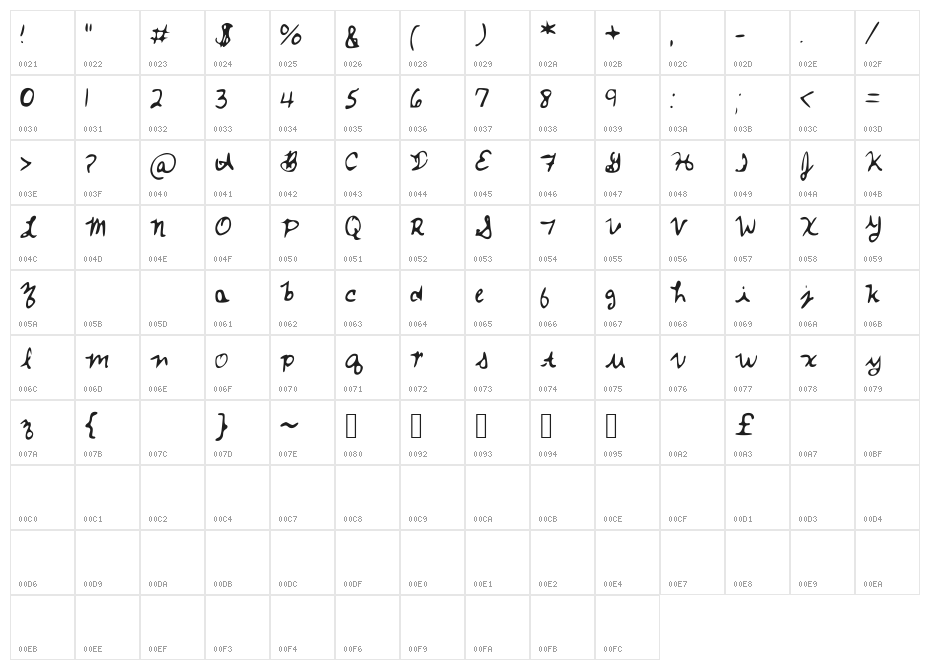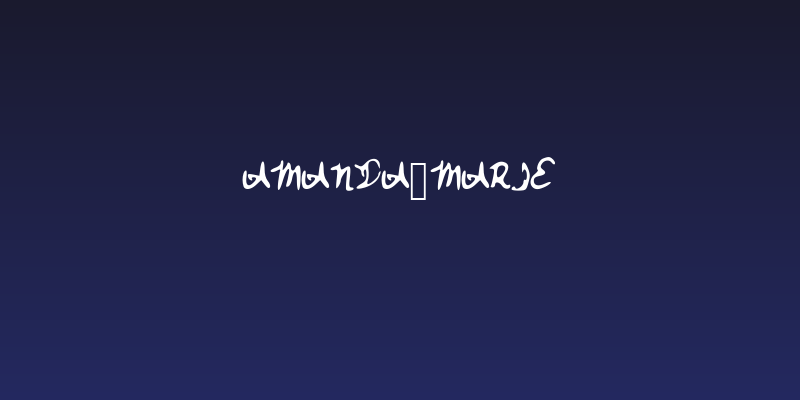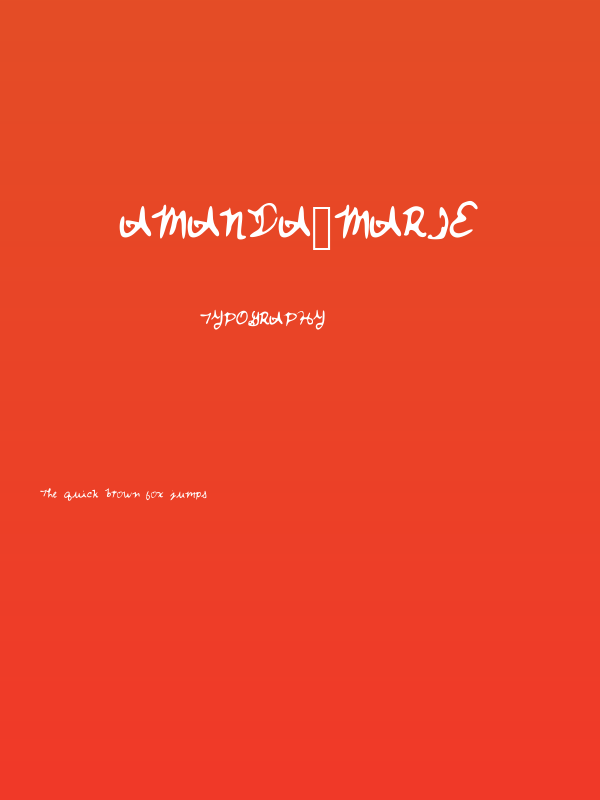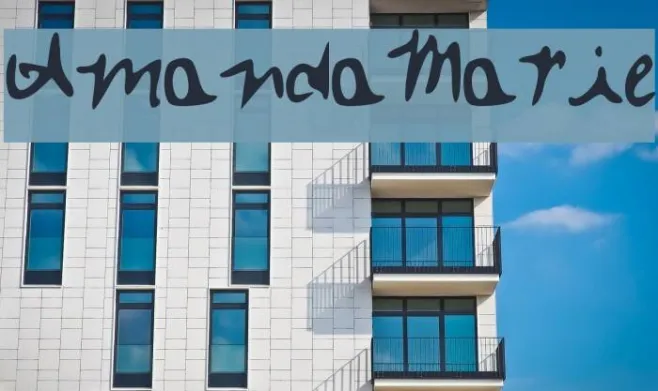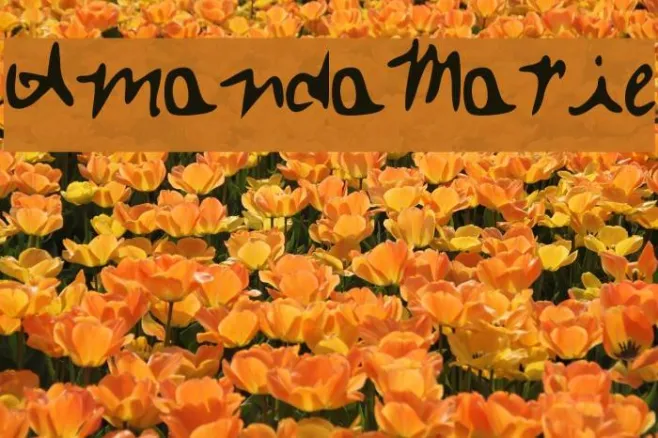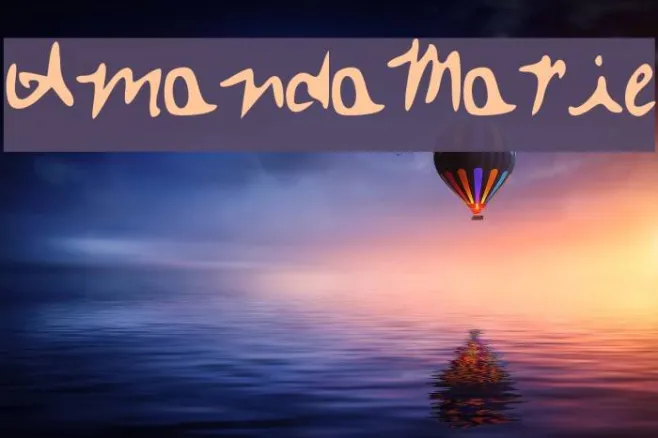
Amanda_Marie Font
Amanda_Marie Description
This font features a unique and artistic style, characterized by its fluid and organic letterforms. The characters exhibit a playful and whimsical appearance, with varying stroke thickness that adds a dynamic and lively feel. The uppercase and lowercase letters maintain a consistent style, with some letters incorporating loops and swirls that enhance the decorative nature of the font. The numerals and special characters are designed to match the overall aesthetic, making it suitable for creative and expressive projects. The font's distinctive style makes it stand out, offering a blend of elegance and creativity.
| Use Case | Logos, Posters, Invitations |
| Proposed Projects | Ideal for creative projects such as invitations, greeting cards, artistic posters, and branding materials that require a unique and expressive touch. |